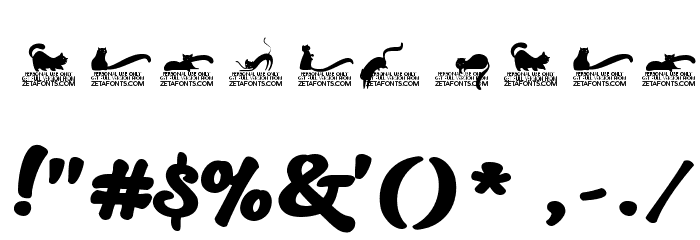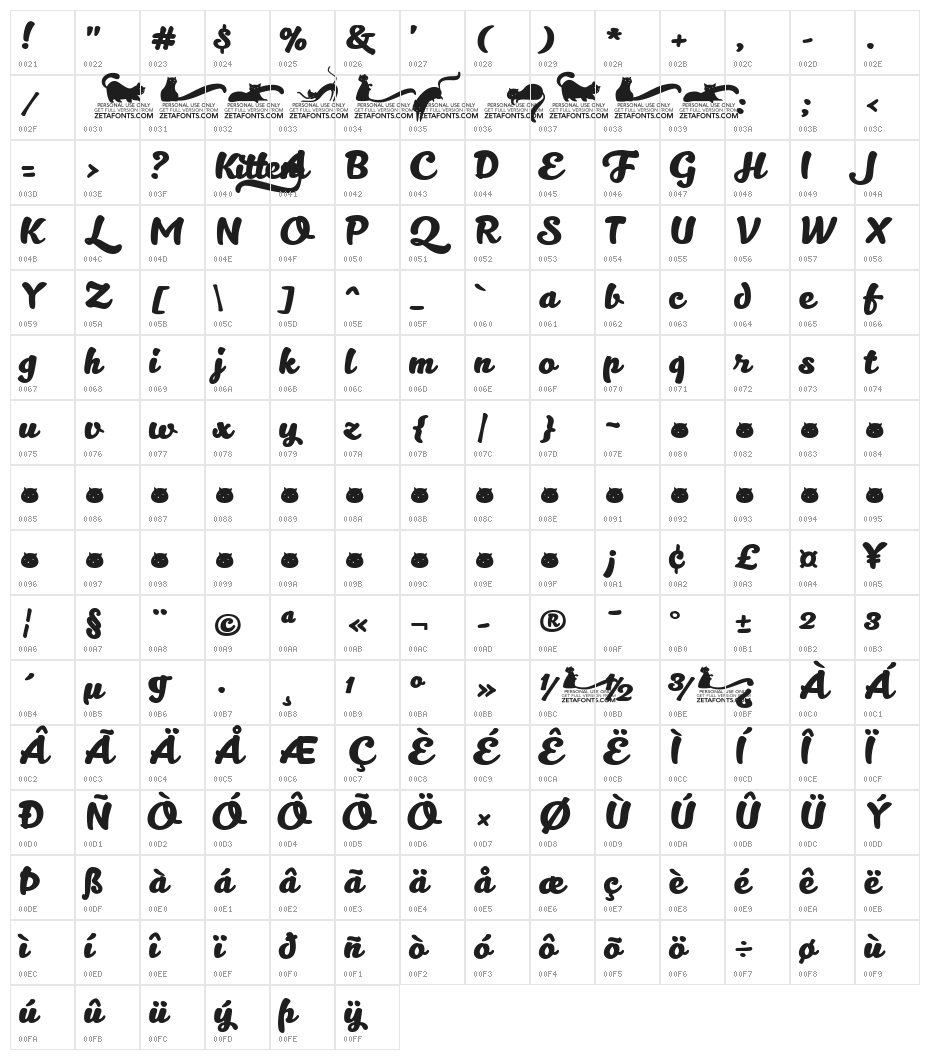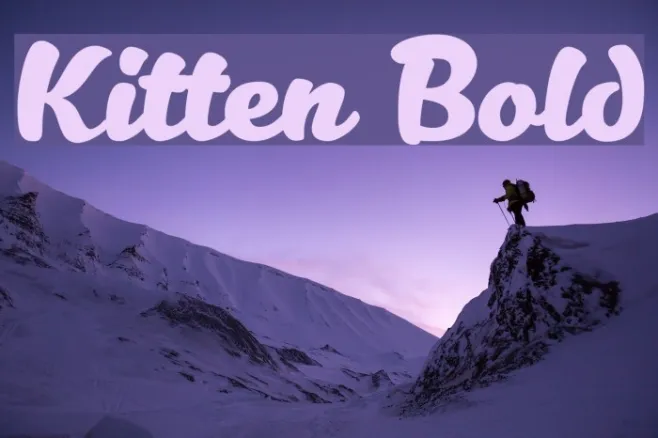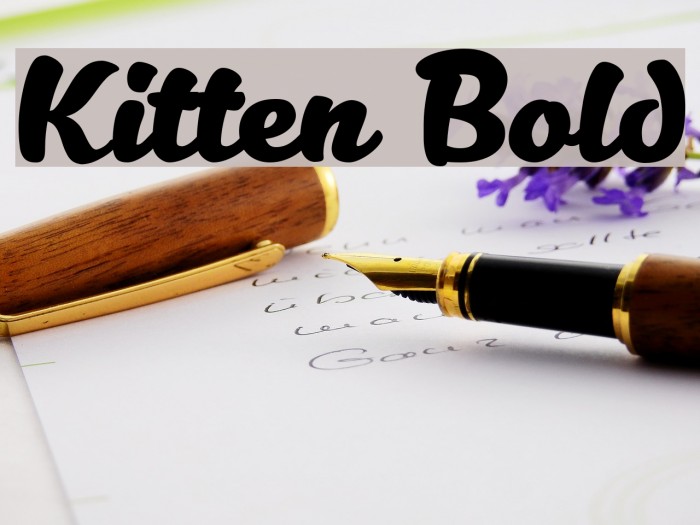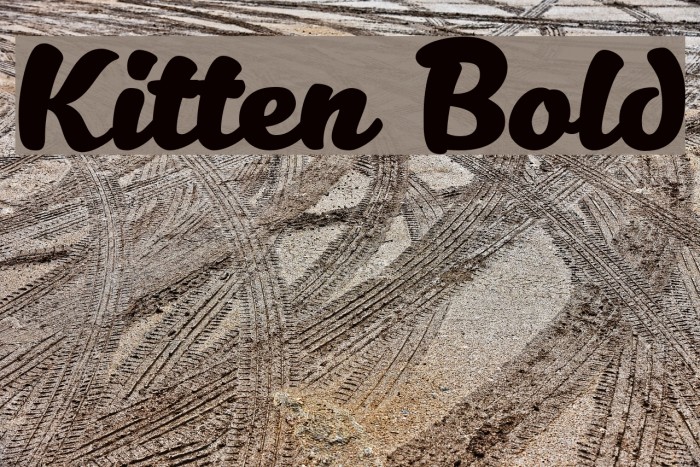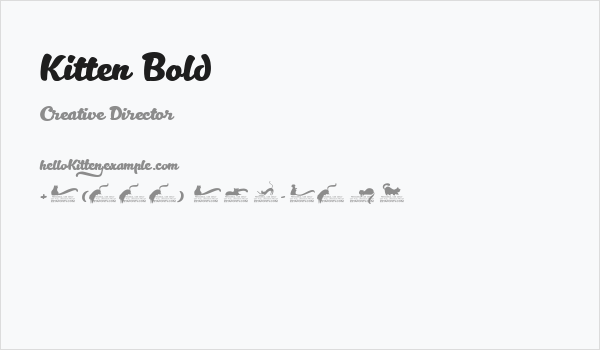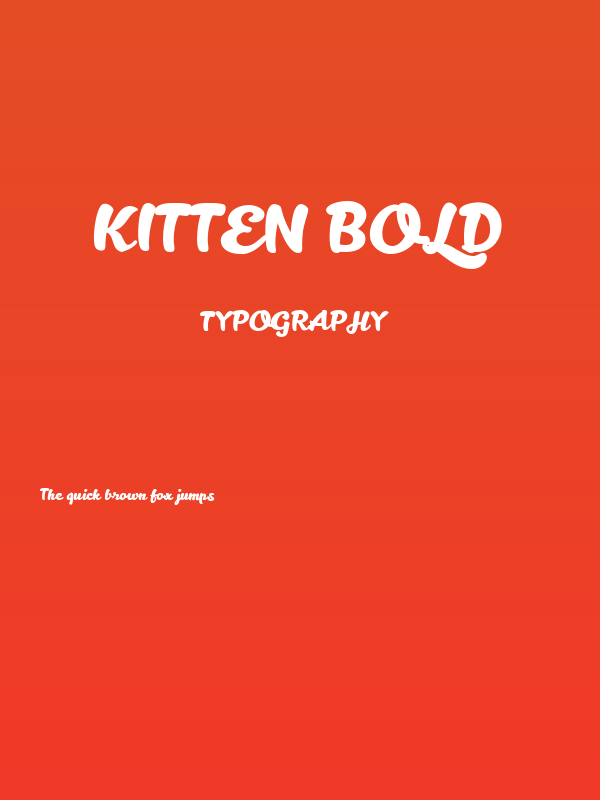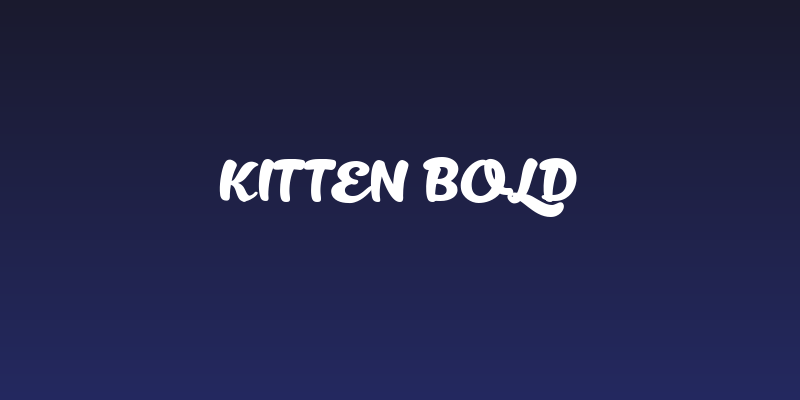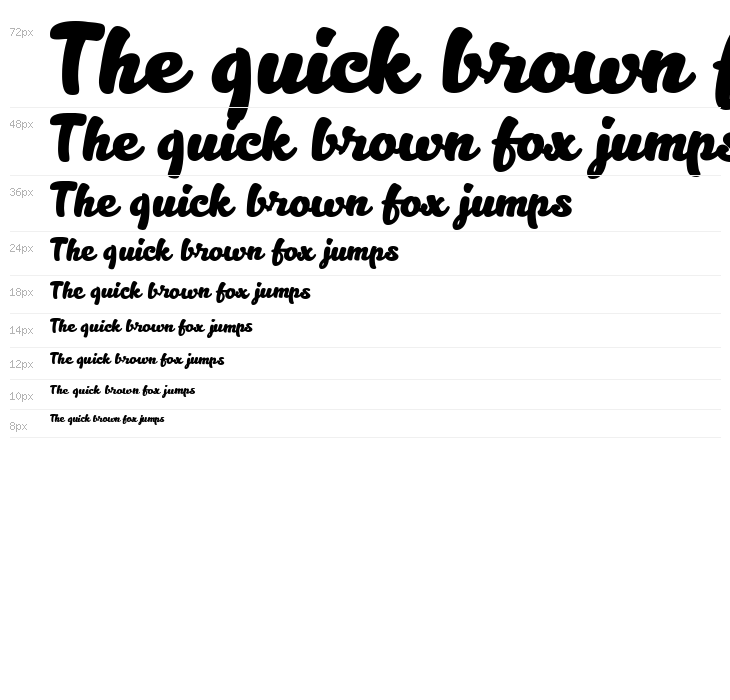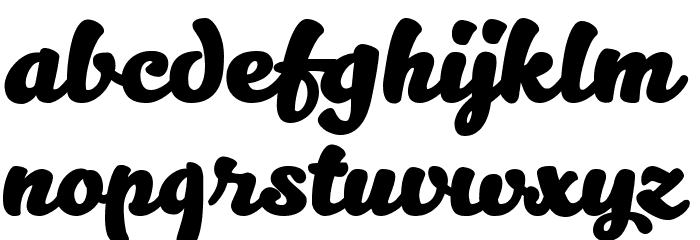
Kitten Bold Font
Kitten Bold Description
This playful and bold script font features a smooth, flowing style with rounded edges and a lively character. The uppercase letters are slightly larger and more pronounced, while the lowercase letters maintain a consistent, fluid motion. The font includes a variety of special characters and punctuation marks, all designed with the same whimsical flair. Its bold weight and medium contrast make it highly legible, even at smaller sizes. The overall design exudes a sense of fun and creativity, making it ideal for projects that require a touch of personality and charm.